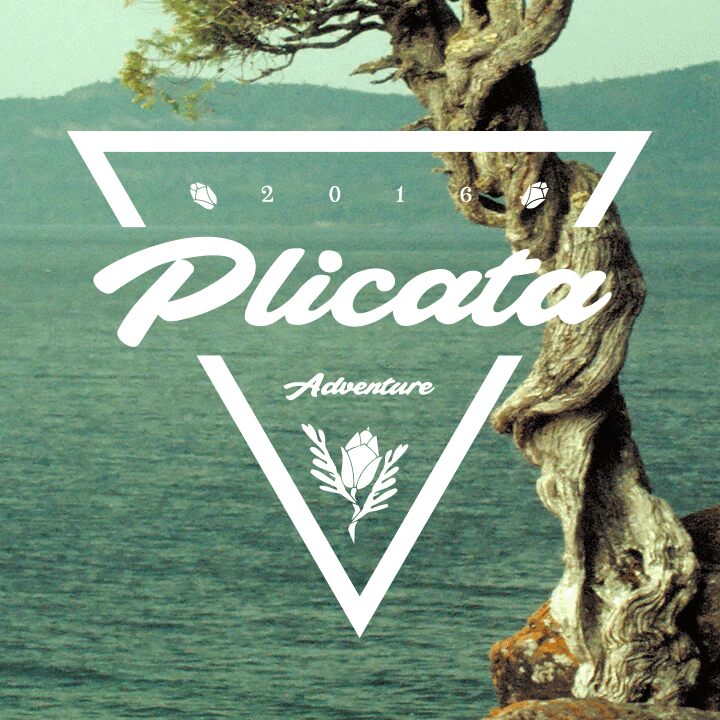
Plicata is a smooth, brush-like font that exudes a sense of effortless elegance. Designed by Måns Grebäck, this expanded typeface features fluid, interconnected letterforms that evoke the graceful strokes of a skilled calligrapher.
The font's dynamic, organic appearance lends itself beautifully to a wide range of applications, from editorial design and branding to packaging and advertising. Its versatility allows it to seamlessly transition between formal and casual settings, making it a compelling choice for those seeking a distinctly distinctive typographic voice.
The font's expressive character and refined aesthetic make it a compelling option for designers seeking to imbue their work with a touch of understated sophistication.